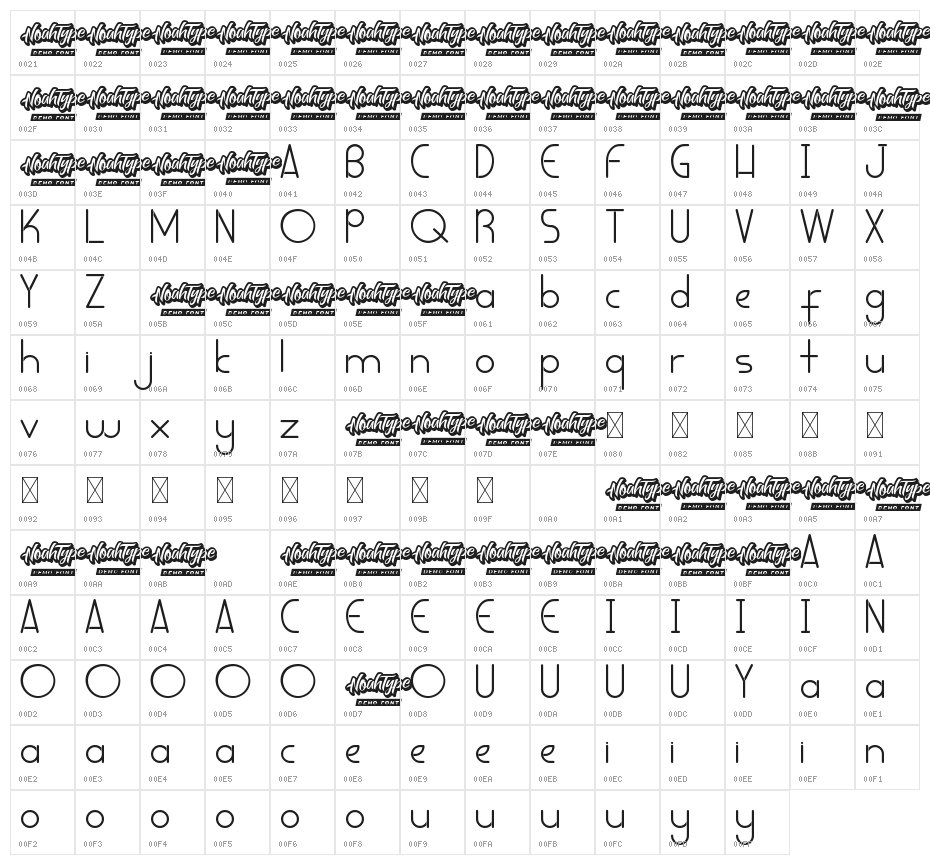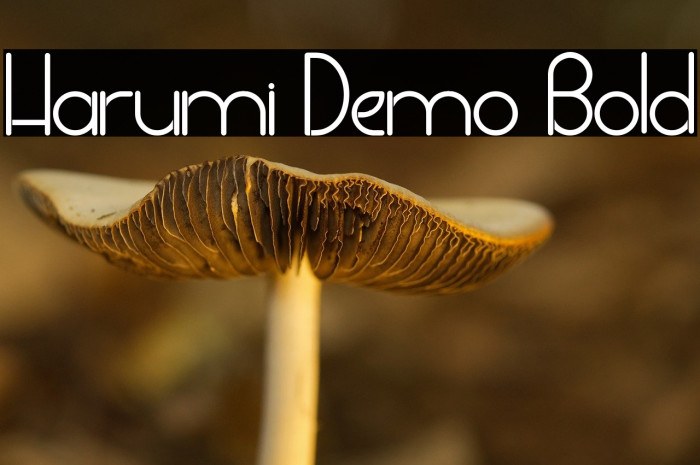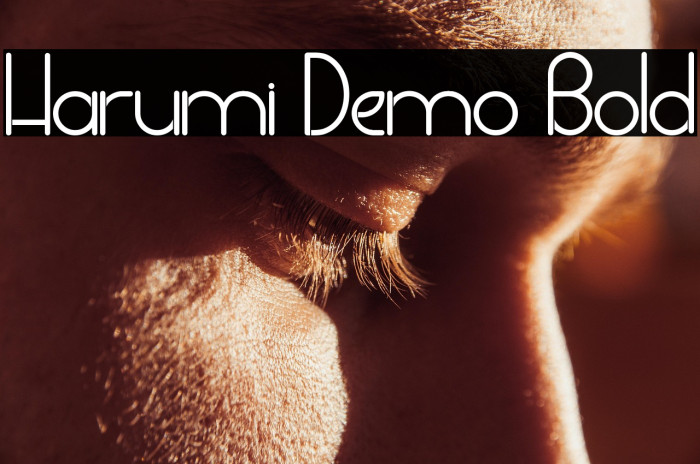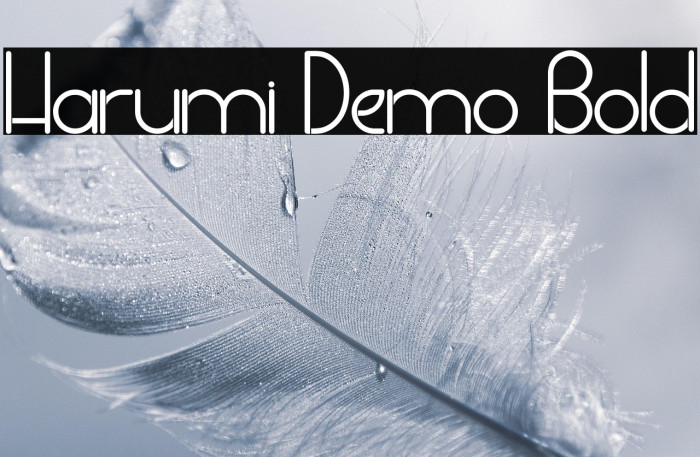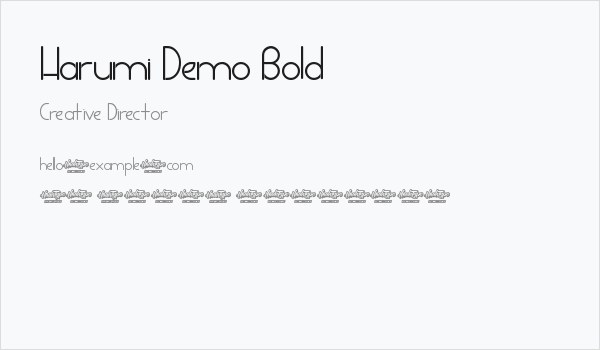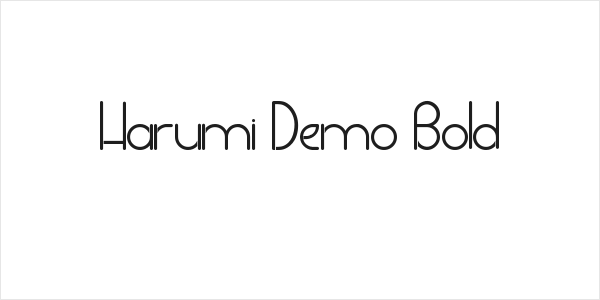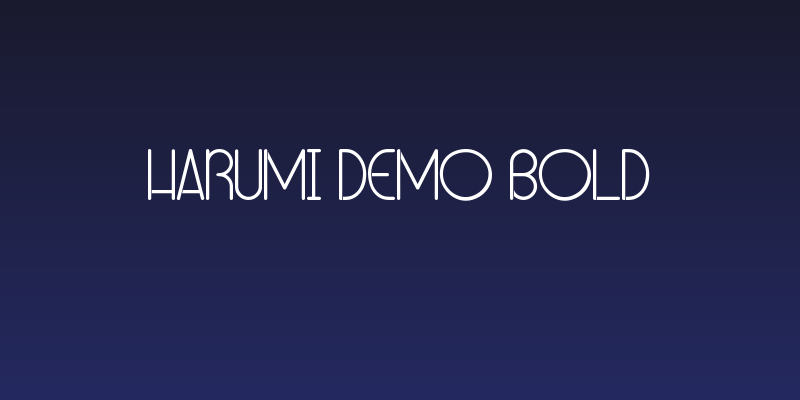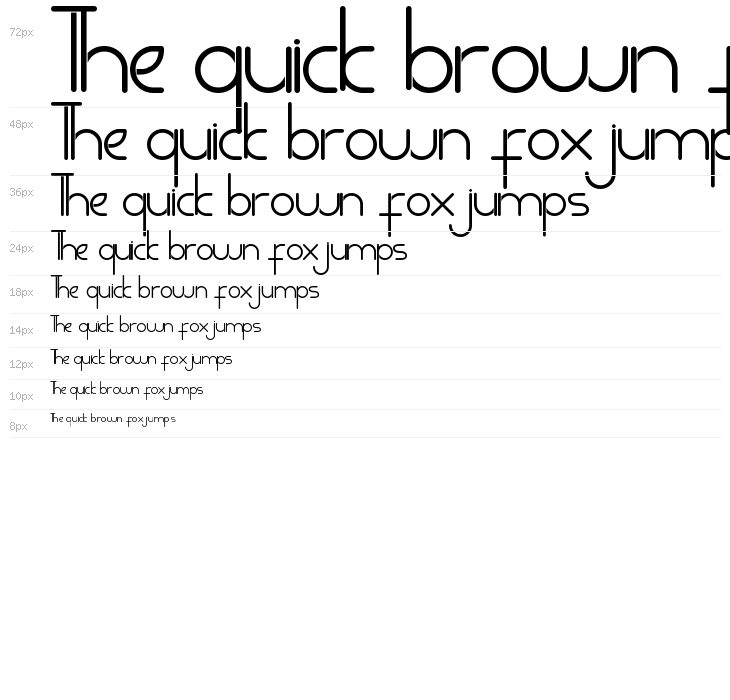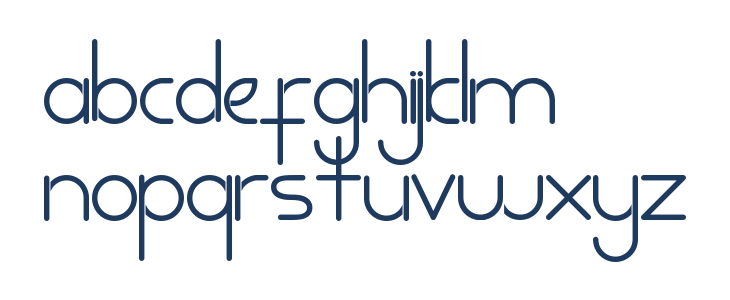
Harumi Demo Bold Font
Harumi Demo Bold Description
This font features a modern, geometric design with clean lines and a distinctive rounded style. The uppercase letters are tall and narrow, creating a sleek and contemporary look. The lowercase letters maintain a consistent style, with unique curves and angles that add character. The numerals and special characters follow the same design principles, ensuring a cohesive appearance across all text. The overall aesthetic is minimalistic yet bold, making it suitable for a variety of design applications.